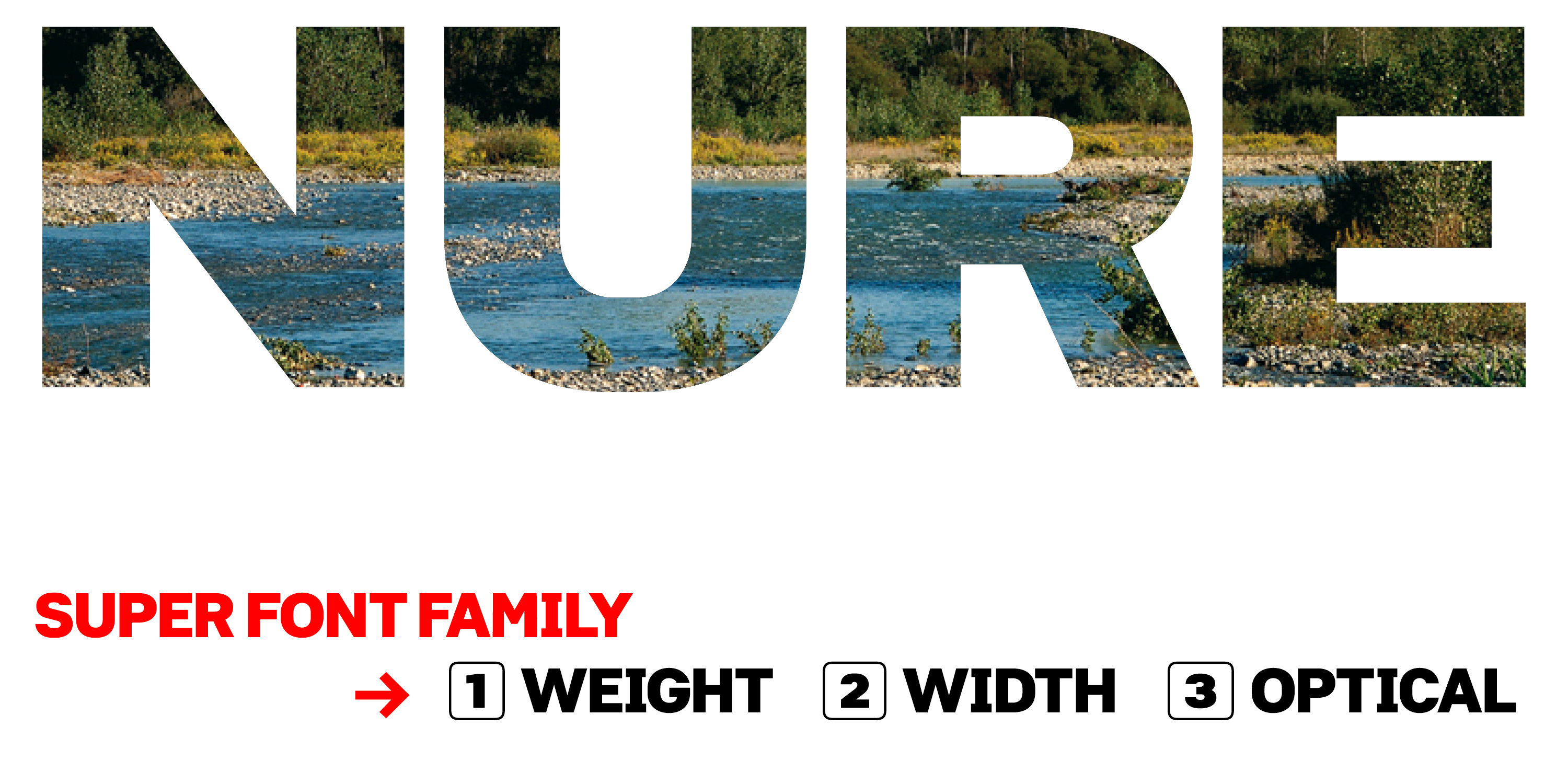
Nure Font is a clean and contemporary sans-serif typeface designed for versatility across branding, web design, editorial work, and user interfaces. Its sleek lines and balanced structure offer exceptional readability and a polished look.
What makes Nure Font Free Download so exciting is its minimalist style combined with subtle geometric influences, making it a perfect choice for modern and professional design projects.
The Nure Font family typically includes multiple weights, from Light to Bold, providing ample flexibility to establish hierarchy and emphasis within your typography.
Whether you're crafting logos, websites, or marketing materials, Nure Font Free Download ensures your design stands out with clarity and sophistication.